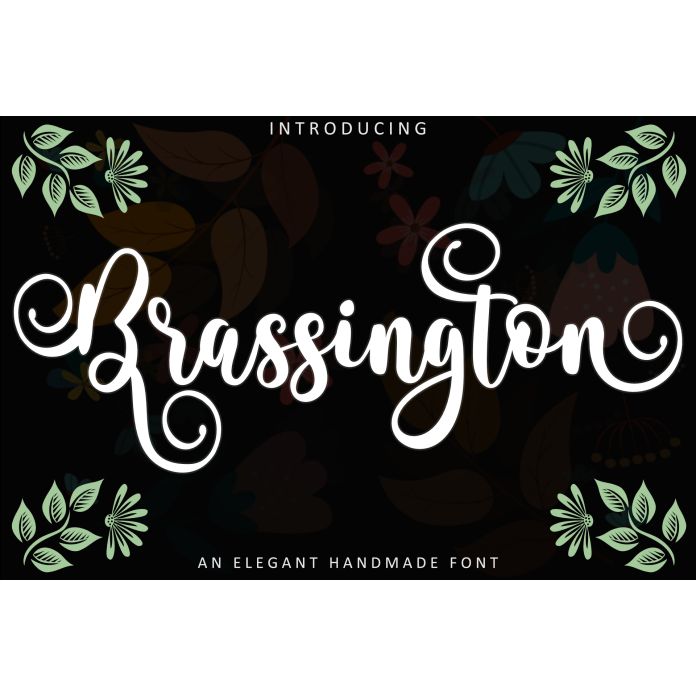
Brassington is a lovely and delicate script font that exudes elegance and class. This font was particularly crafted for those who need a beautiful and refreshing look to their designs.